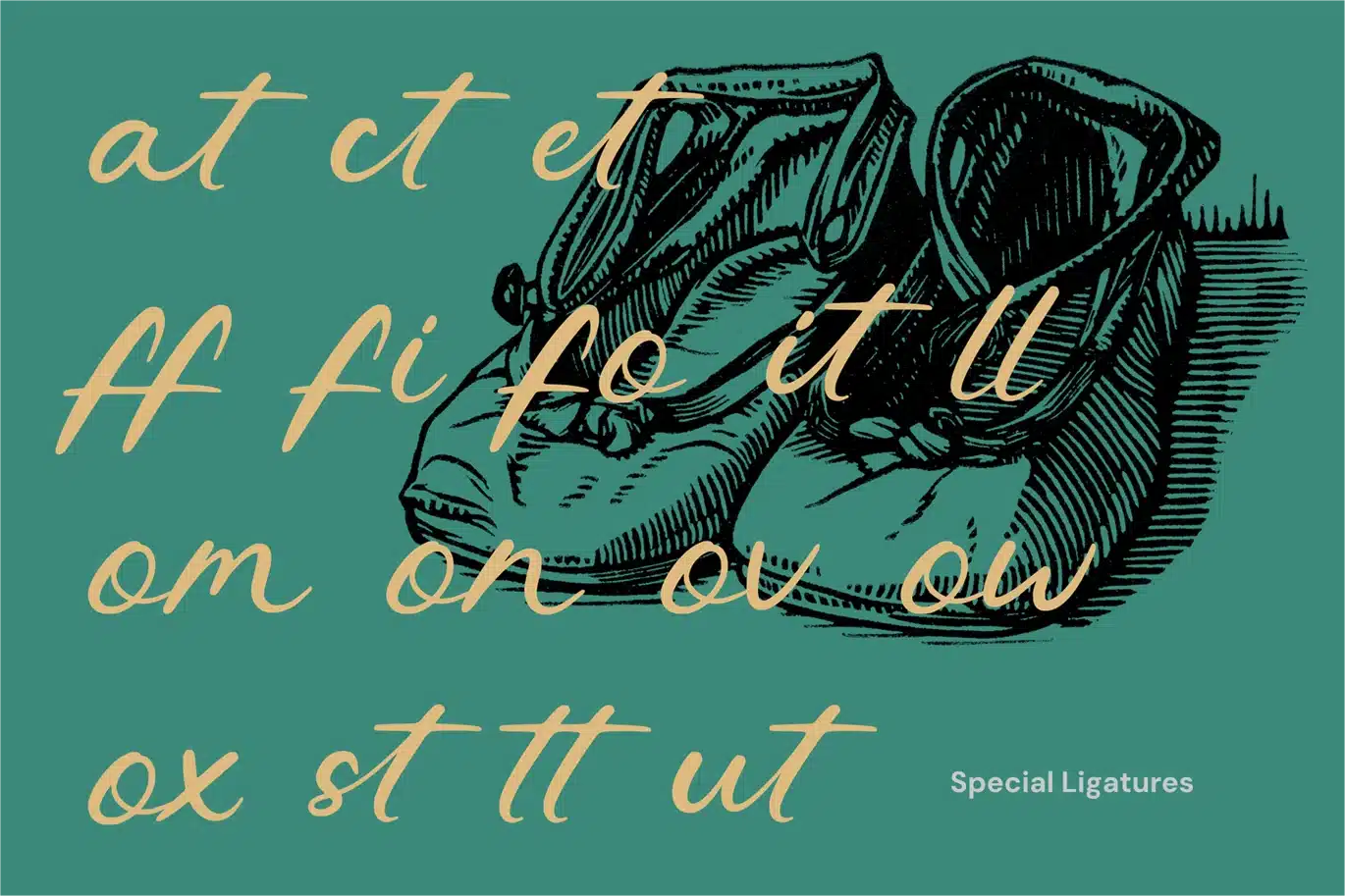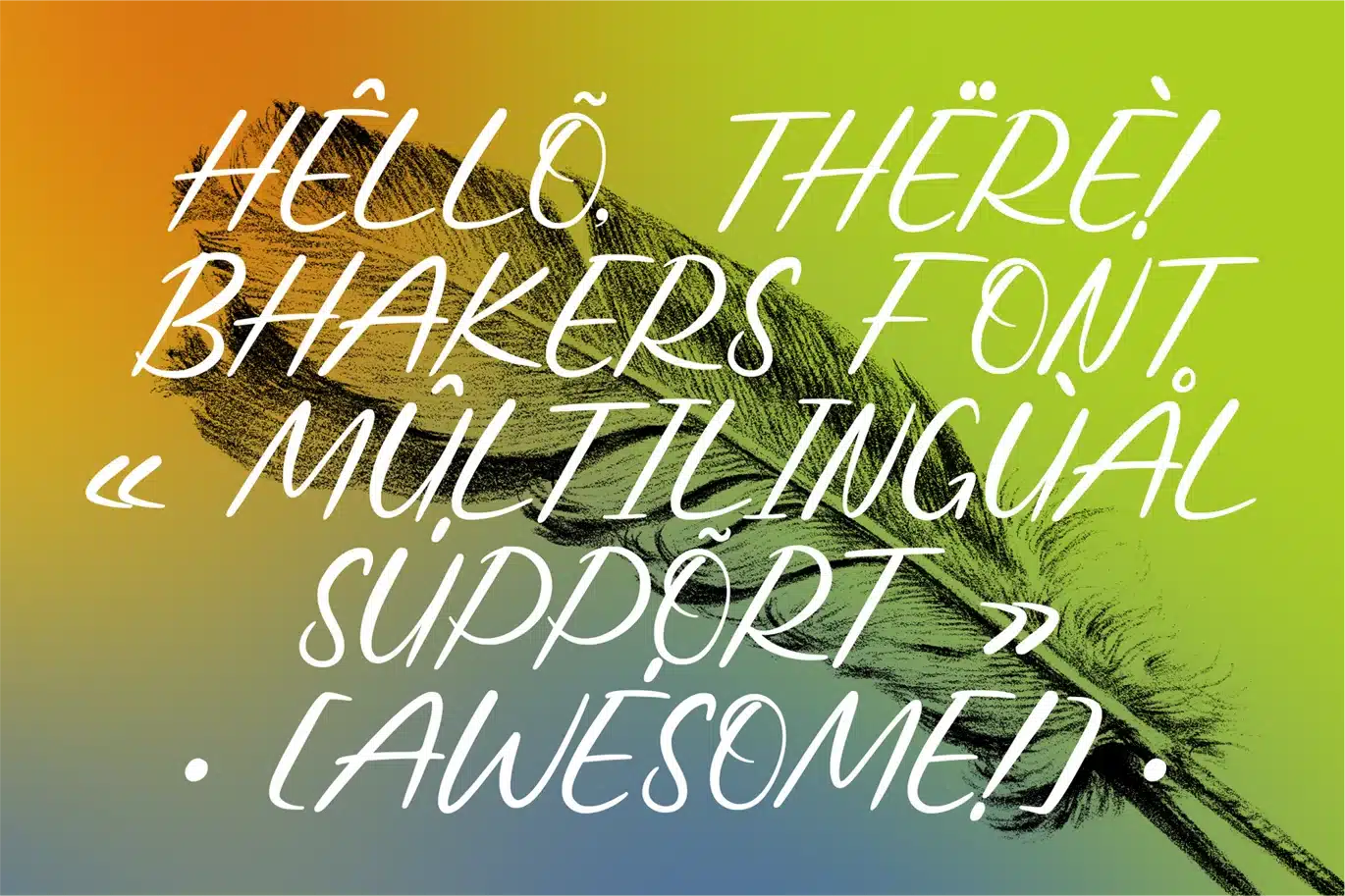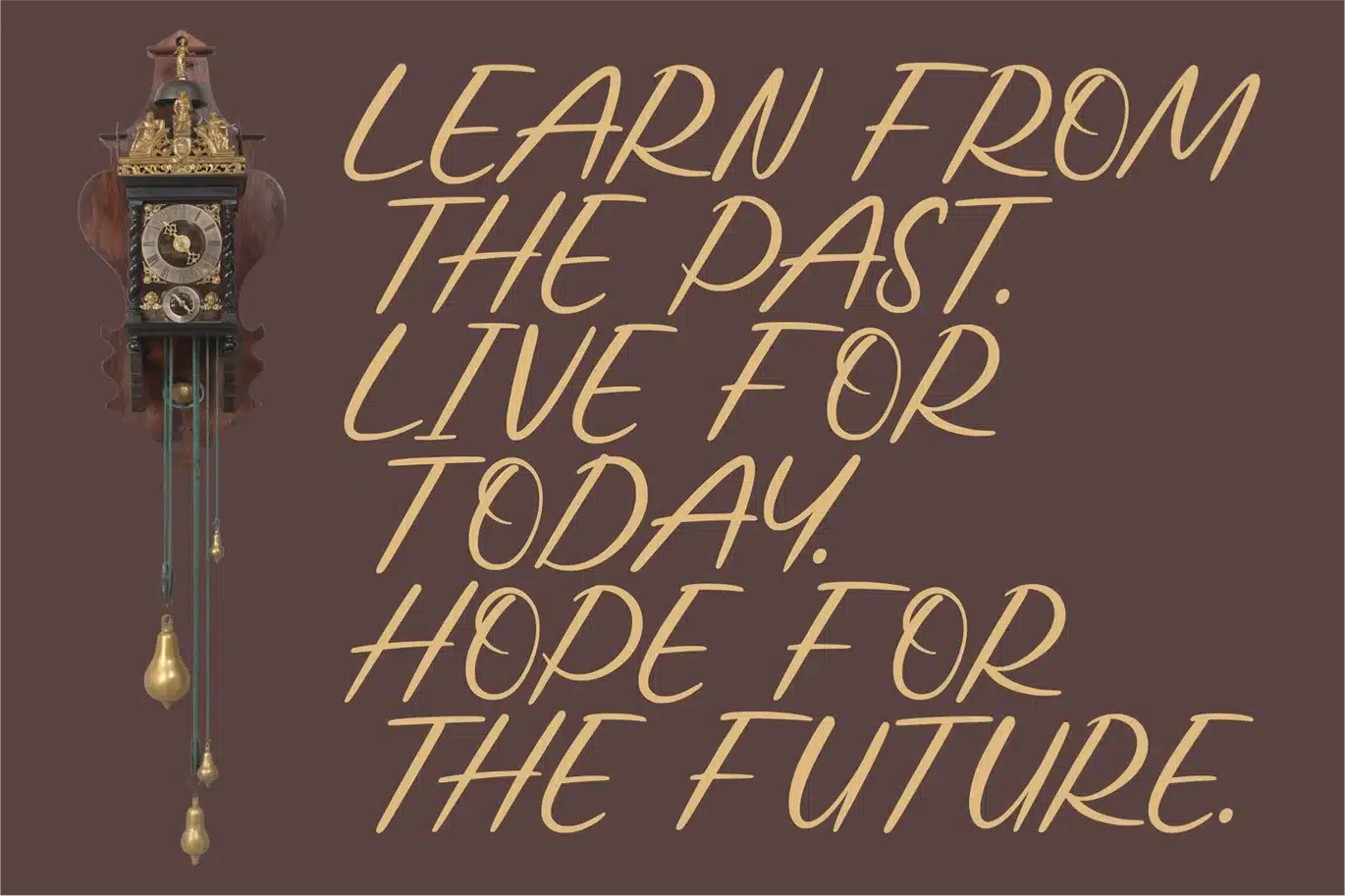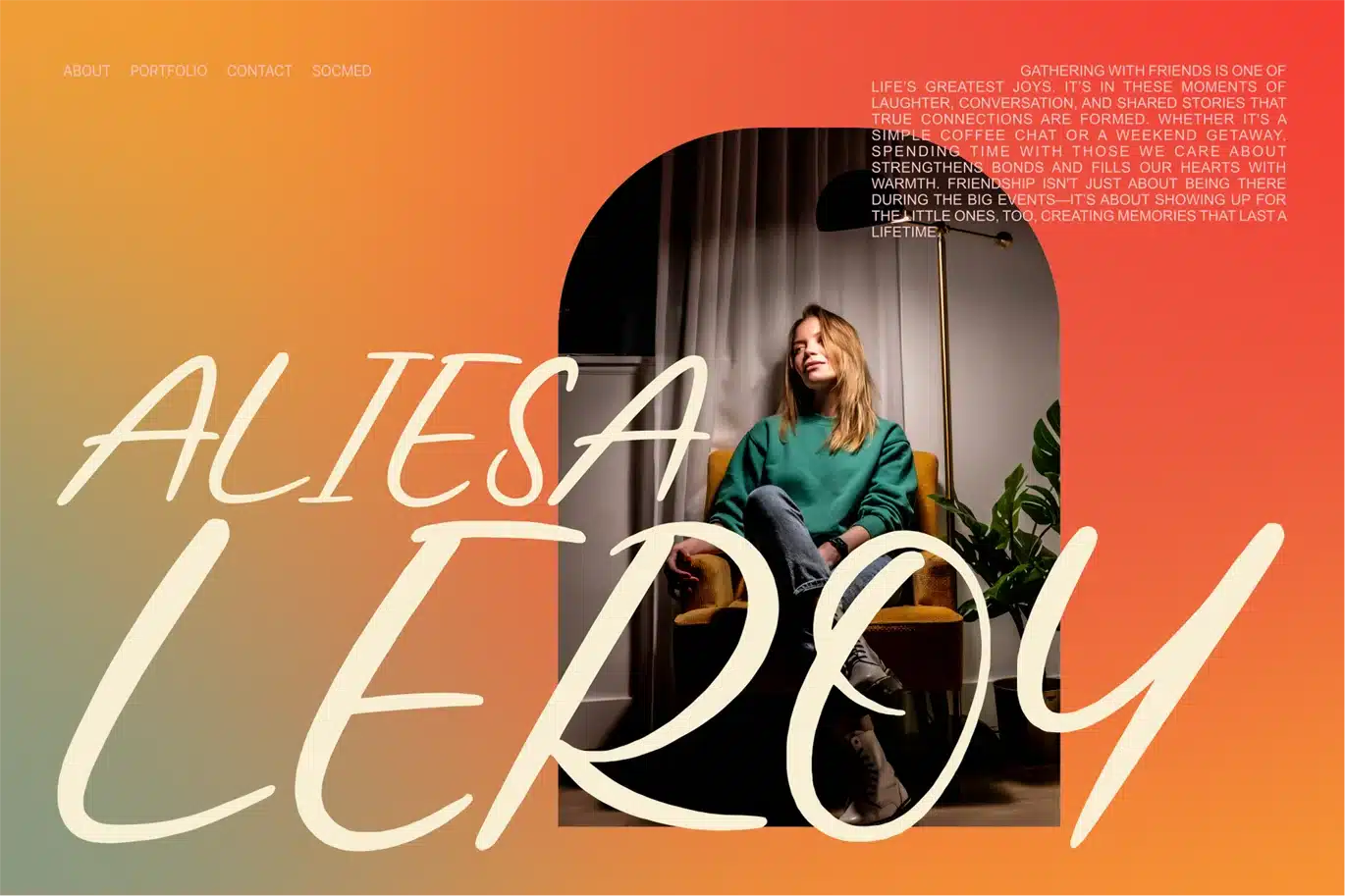
Bhakers – Handwritten Brush Modern Logo Font
Bhakers is a vibrant, energetic brush font designed to bring a bold personality to your creative projects. Inspired by retro hand-lettered signs and modern brush calligraphy, this font fuses nostalgic flair with contemporary aesthetics. Each letter is crafted with sweeping strokes and expressive curves, perfect for making your headlines pop and your branding stand out.
Features
- 386 Unique Glyphs
- Ligatures & Symbols
- Currency Support
- Multilingual Characters
- Smooth & Dynamic Brush Strokes
- Branding & Logo Design
- Social Media Graphics
- Poster & Flyer Titles
- Packaging & Product Labels
- YouTube Thumbnails or Channel Art
- Music & Festival Promotions
- Vintage or Retro-Inspired Projects
- Bold Editorial Layouts